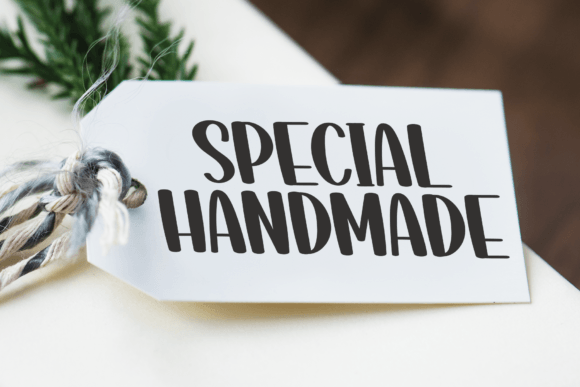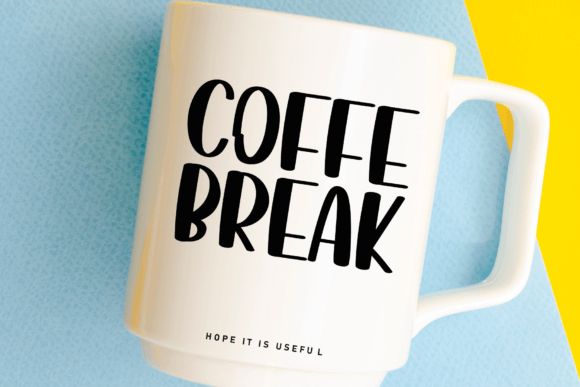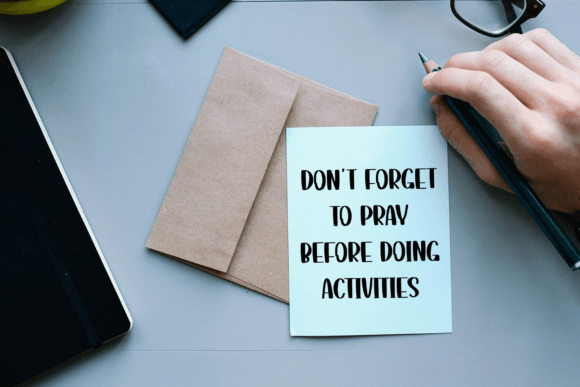
Introduction to Relation Font
Have you ever been in the midst of a creative project, staring at a blank canvas, waiting for that perfect font to spark your imagination? For designers, this moment is a familiar one, and finding the right font can make all the difference in bringing a project to life. That’s where Relation Font comes in – a beautiful display font that’s sure to captivate your audience.
With its elegant touch and timeless style, Relation Font is a valuable addition to any designer’s toolkit. Whether you’re working on a high-quality design project or simply looking for a free download to enhance your creative project, this font is a must-have. Its distinct and transparent background make it perfect for adding a touch of sophistication to your designs.
Key Features of Relation Font
- High-quality design resource suitable for creative projects, offering a unique and stylish look.
- Transparent background, allowing for seamless integration into any design, from digital to print.
- High-resolution design, suitable for use in a variety of creative projects, from posters to digital displays.
- Perfect for designers and artists looking for a high-quality, creative font to elevate their projects.
- Designed to provide a unique and stylish look, making it an excellent addition to any design resource library.
Honest Review: Relation Font
I recently stumbled upon the Relation Font, a design resource that caught my eye with its unique aesthetic. At first glance, I was drawn to the font’s minimalist design and clean lines.
What doesn’t work well: ⚠️ While the Relation Font is a great addition to any design collection, I find its character set to be somewhat limited. The font would benefit from additional glyphs and characters to make it more versatile.
Overall, I’m impressed with the Relation Font’s potential and would recommend it to designers working on a variety of projects. Its high-quality design and transparent background make it a valuable resource, and its free download is a definite bonus.
- High-quality design experience
- Wide range of styles
Relation Font
Relation Font is a versatile and high-quality design resource ideal for creative projects that require a touch of sophistication and elegance. With its transparent background, this font is perfect for use in various design applications.
Tips for Getting the Most Out of Relation Font
For optimal results, use Relation Font with a high-quality image or design element to create a visually appealing contrast. Additionally, experiment with different font sizes and styles to achieve the desired effect.
Relation Font is suitable for a wide range of creative projects, including wedding invitations, business cards, and social media graphics. Its elegant design makes it perfect for formal events and corporate branding.